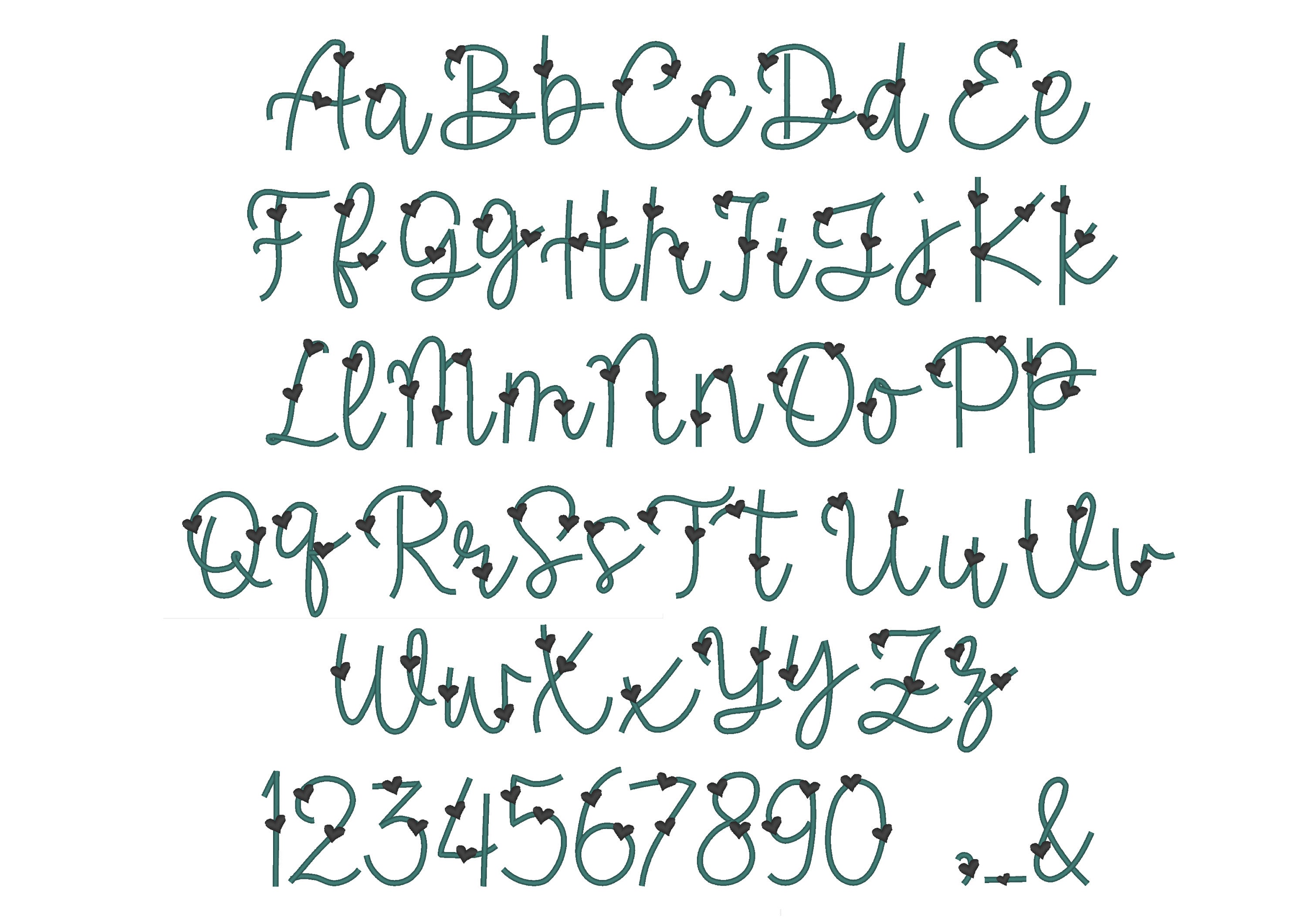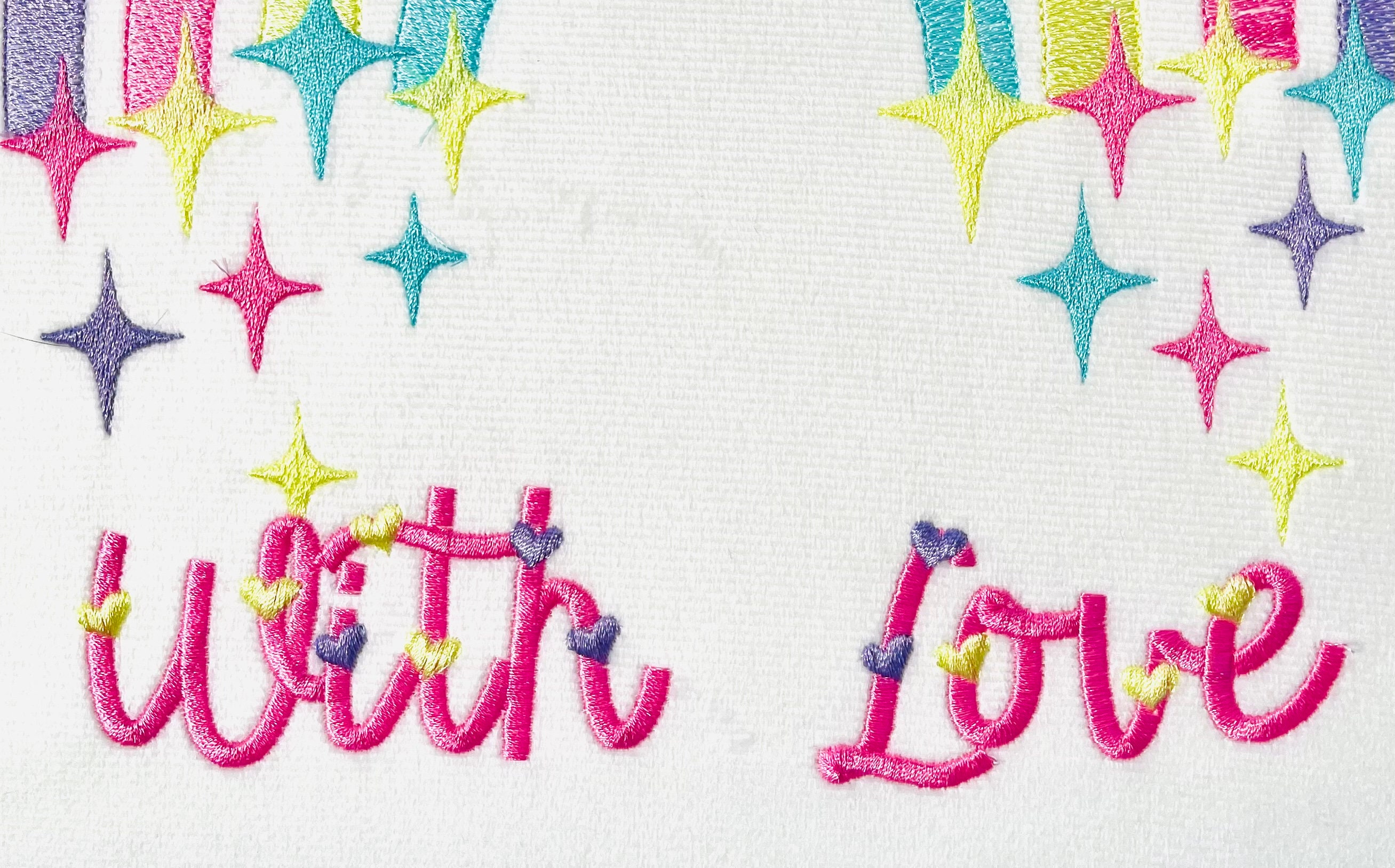
Quick light bean stitch Thin Line FONT machine embroidery designs assorted mini sizes, handwritten alphabet letters, kids name, BX included
Whole alphabet: uppercase and lowercase letters, numbers, and special marks & . -